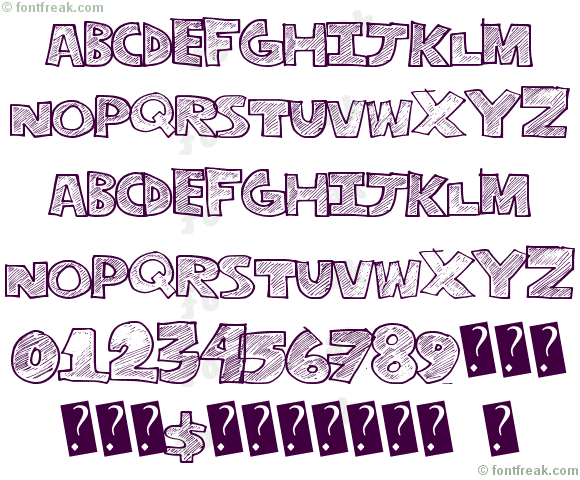
StripeFun
StripeFun by Xerographer Fonts is a captivating display font that immediately draws attention with its playful and whimsical design. This font features a unique hand-drawn aesthetic, characterized by exaggerated stroke weights and a lively, irregular baseline that adds a sense of movement and spontaneity. The lines are thick and bold, yet maintain a charming lightness, making it highly versatile for various creative projects. Its design incorporates fun, stripe-like embellishments that enhance its decorative nature without overwhelming the text, creating a balance that is both engaging and easy to read.
Ideal for a wide range of applications, the StripeFun font excels in settings such as children's book covers, playful branding for family-oriented businesses, vibrant restaurant menus, and eye-catching event posters. Its quirky character makes it perfect for projects aimed at younger audiences or those seeking to evoke nostalgia and joy. Graphic designers, small business owners, and content creators will find this font an invaluable asset in their typographic toolkit, as it effortlessly captures attention and communicates a sense of fun and creativity.
What truly makes StripeFun stand out is its ability to infuse personality into any design. It invites viewers to engage with the content, making it an excellent choice for brands looking to convey a friendly and approachable image. Whether used in digital media or print, the playful nature of StripeFun ensures that your message resonates with its audience. If you're looking to elevate your design with a touch of whimsy, the StripeFun font free download is an excellent choice that will bring your creative visions to life.